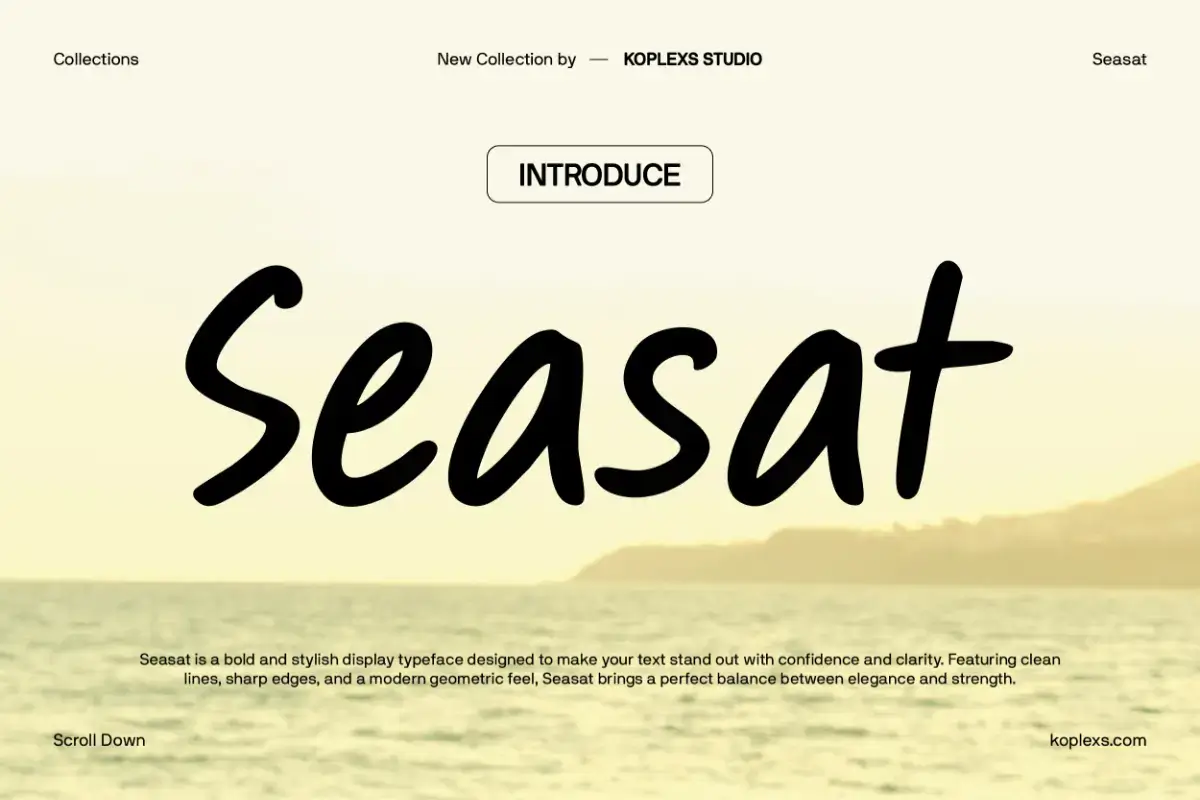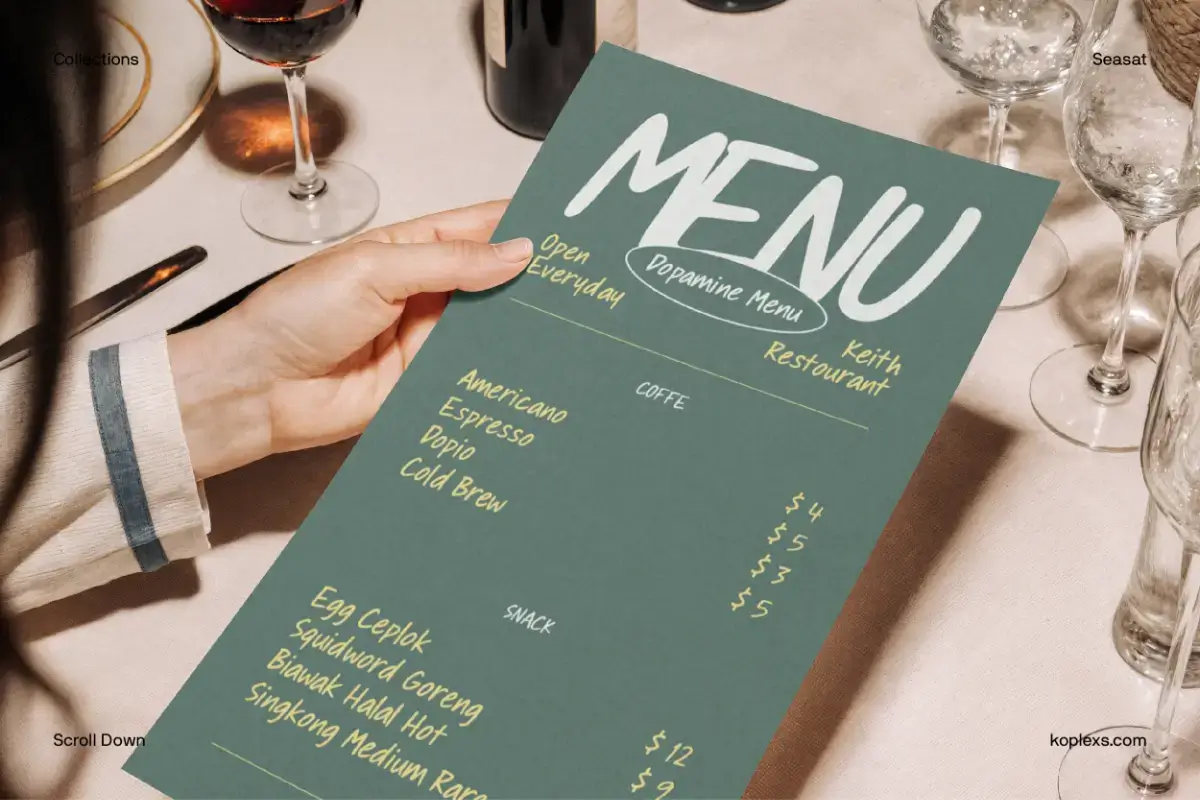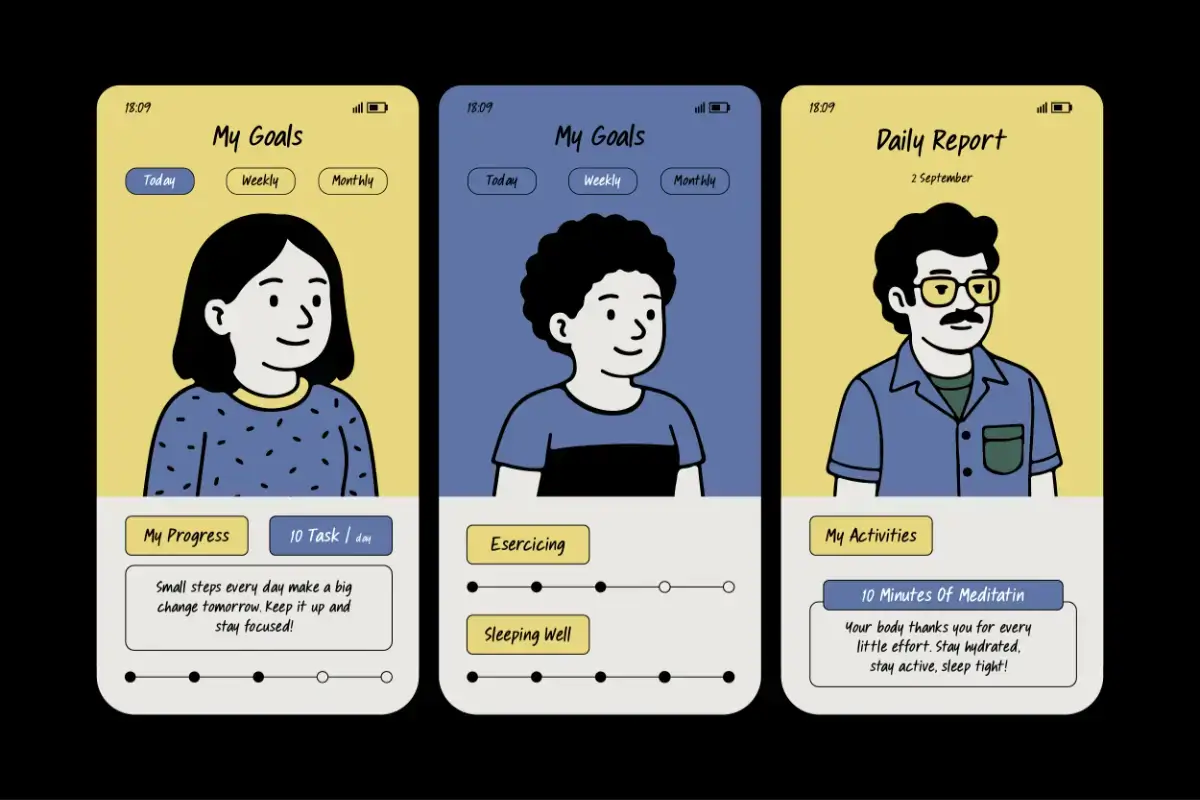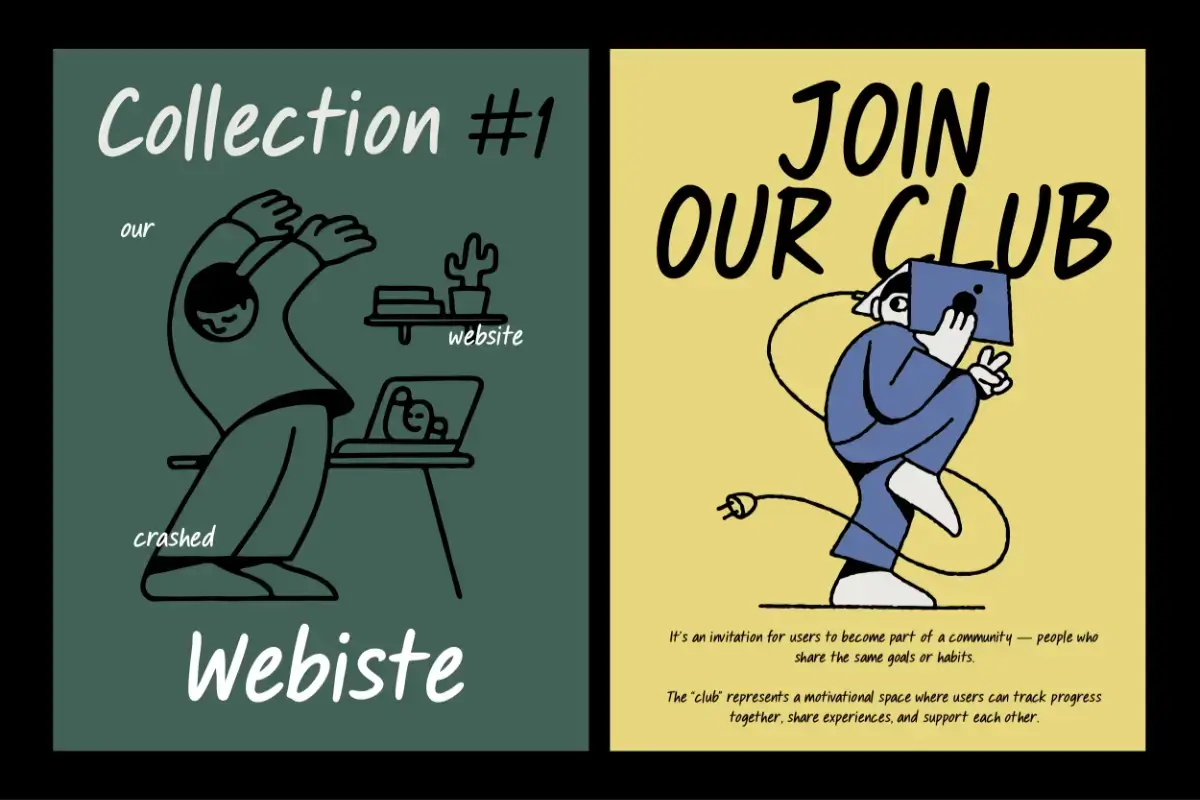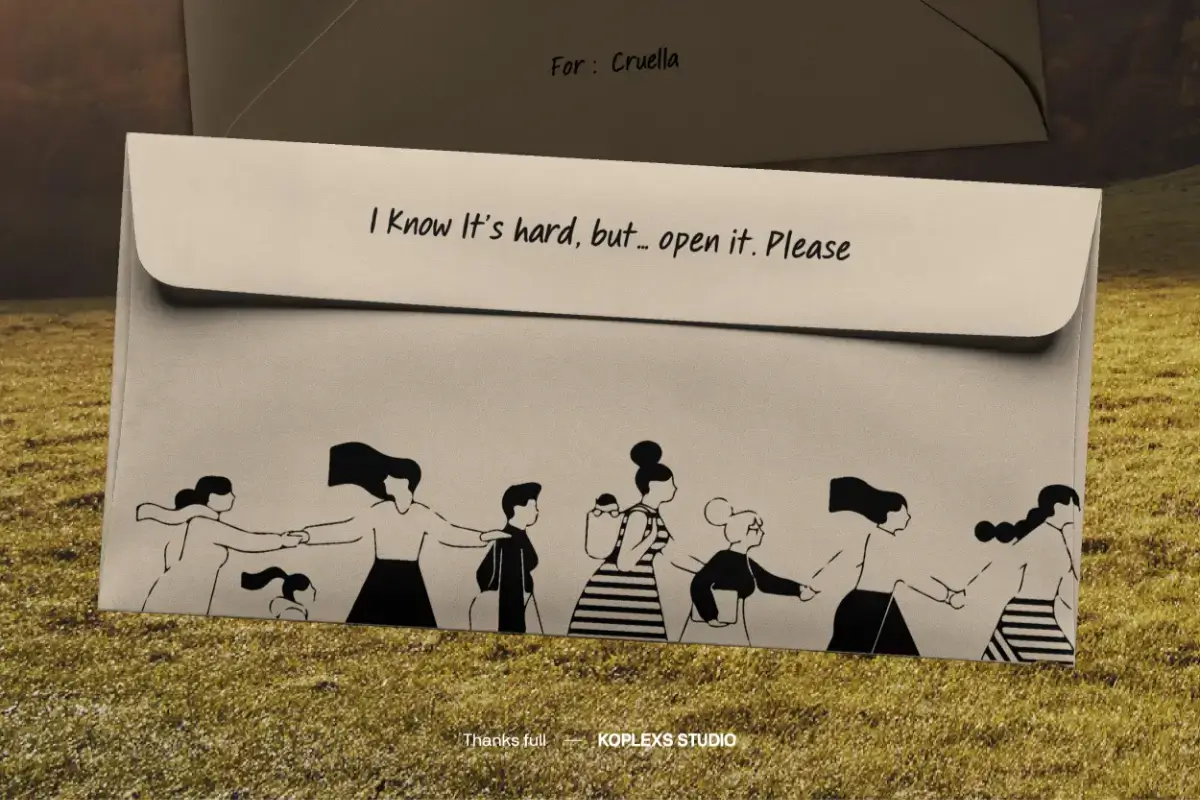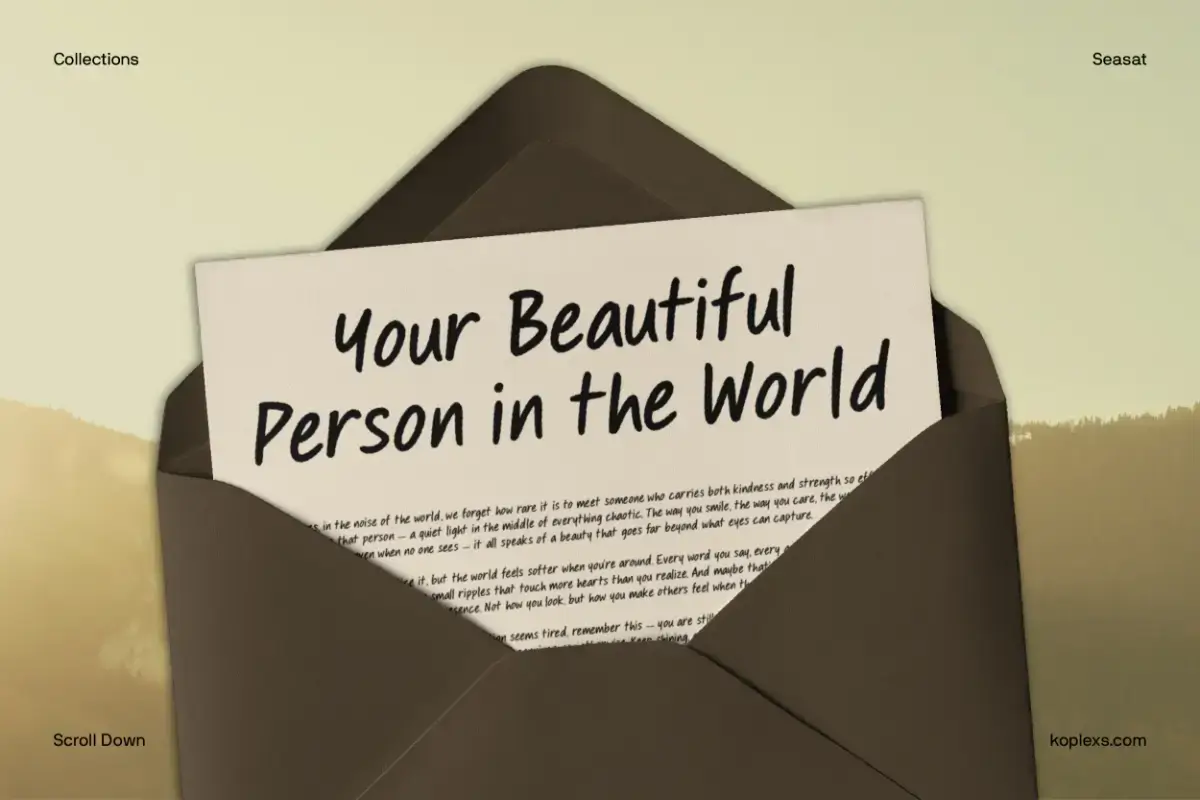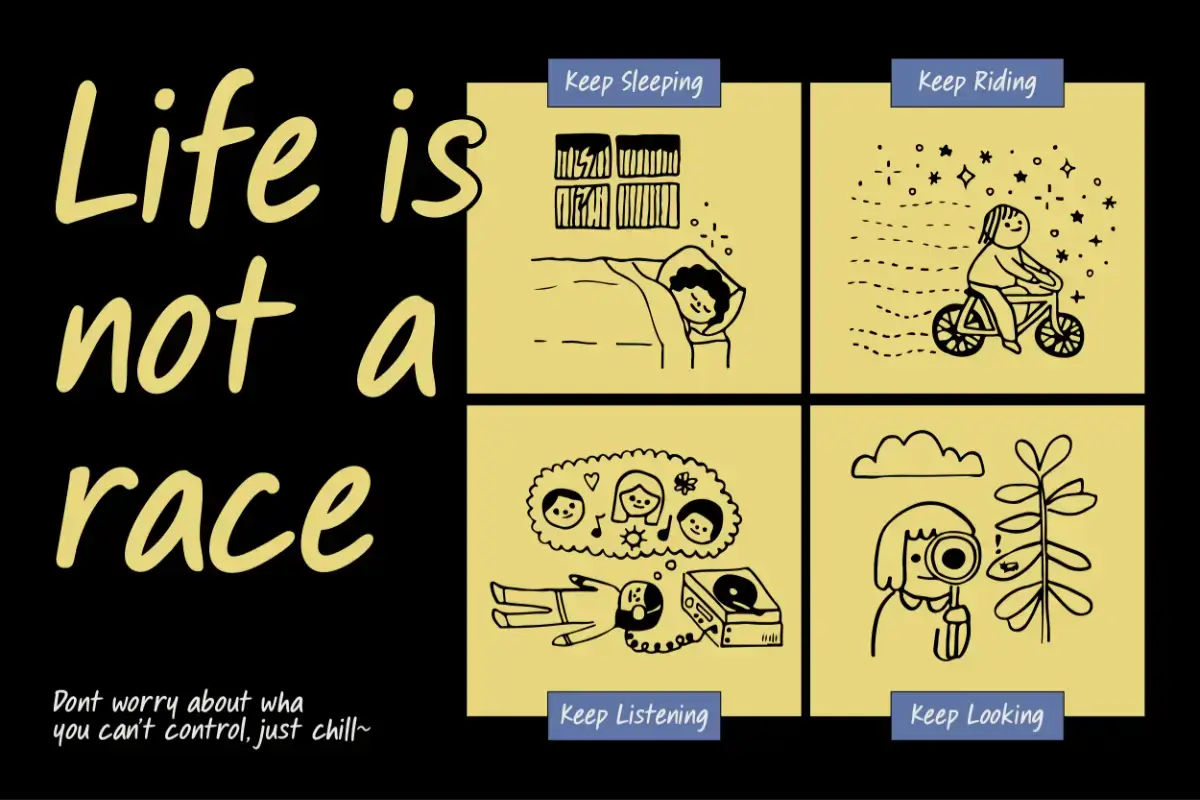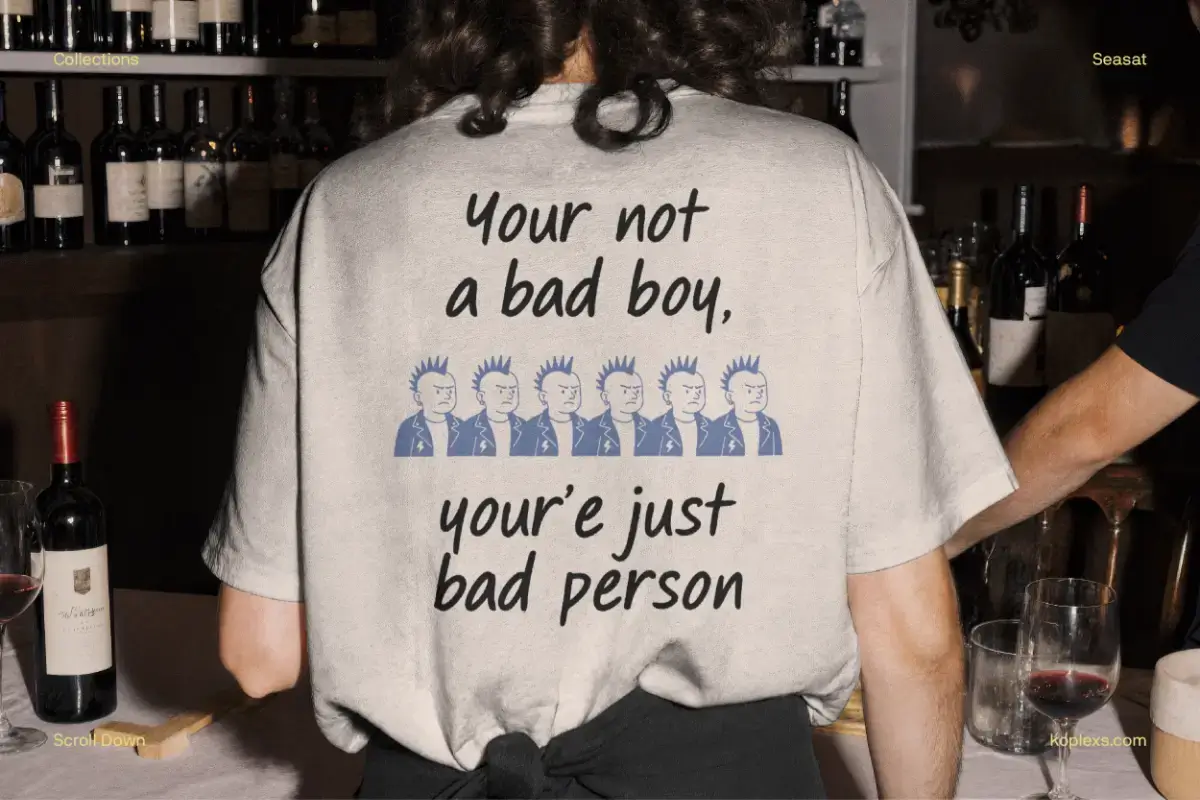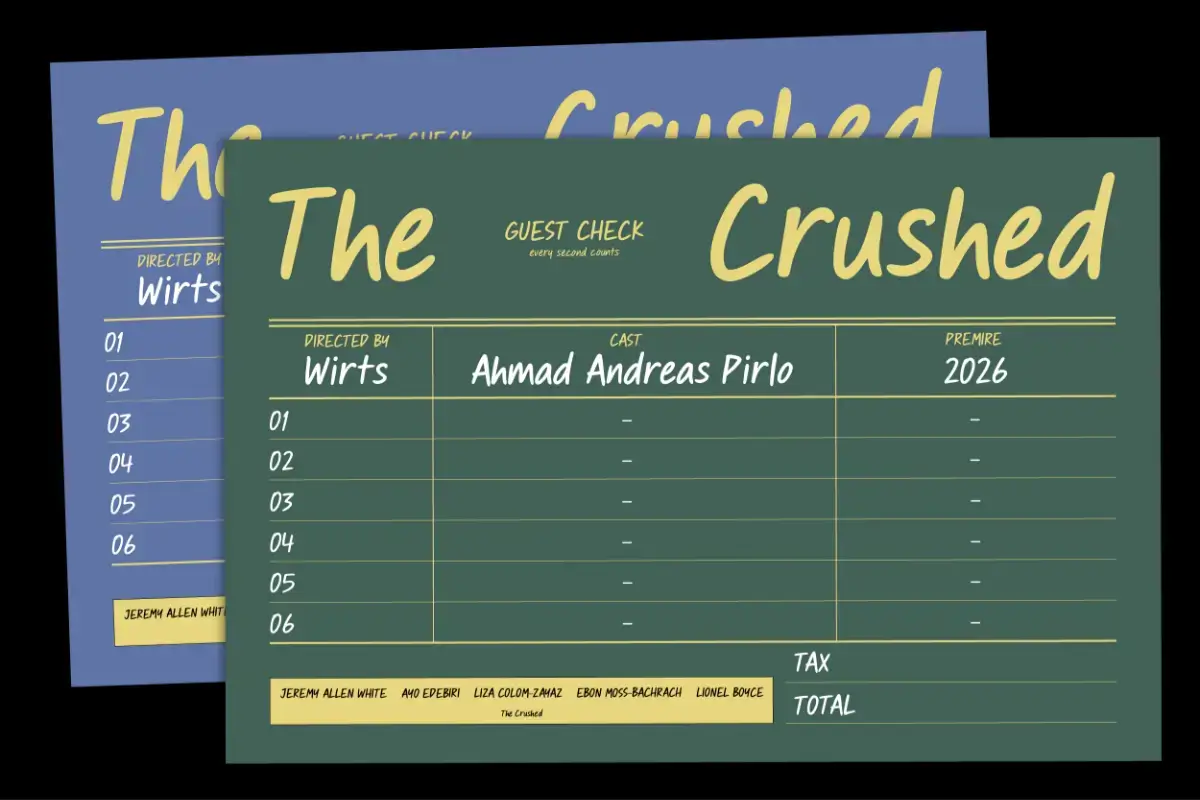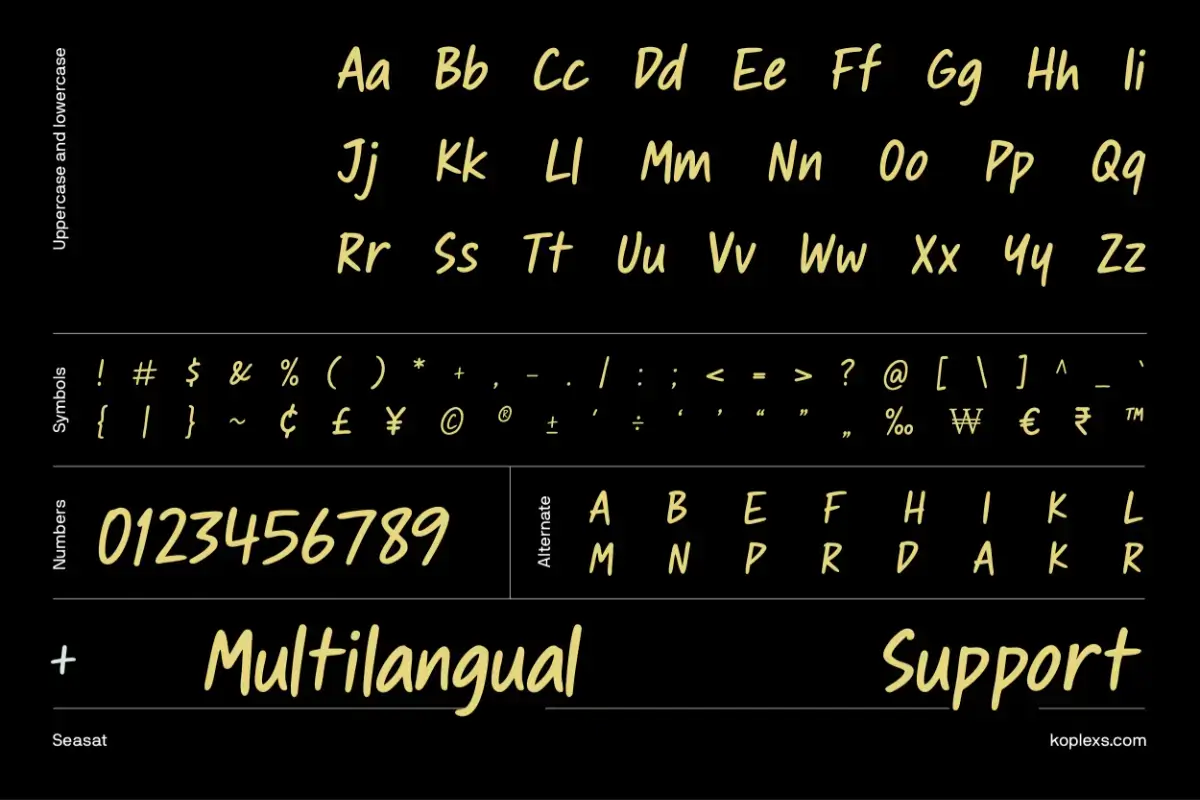
Seasat Font Handwritten Display Font for Creative Branding and Lifestyle Design
Meet Seasat Font, a handwritten display font with a casual marker style, natural movement, and a friendly creative personality. Designed to feel personal, expressive, and easy to use, Seasat is perfect for designers who want their typography to look more human, relaxed, and memorable.
Seasat Font brings the charm of hand drawn lettering into modern design projects. Its smooth strokes, playful flow, and handmade character make it a great choice for visual work that needs warmth, personality, and a fresh creative touch. Whether you are designing a logo, poster, product label, social media post, or merchandise artwork, Seasat helps your message feel more natural and full of character.
This font works especially well for lifestyle brands, cafe menus, restaurant graphics, fashion visuals, quote designs, creative packaging, stickers, greeting cards, and digital content. It has enough personality to stand out in headlines, but still feels clean and readable for short text and promotional layouts.
Seasat Font Features :
- Standard & Multilingual glyphs
- Alternates & Ligatures
- Fonts include multilingual support
Seasat Font Best Suited For :
- Logo design
- Brand identity
- Poster design
- Product packaging
- Merchandise graphics
- T shirt artwork
- Social media posts
- Instagram quotes
- Cafe branding
- Restaurant menus
- Greeting cards
- Stickers and labels
- Website headers
- Event flyers
- Music artwork
- Book covers
- YouTube thumbnails
- Creative portfolios
- Lifestyle campaigns
- Handmade product branding